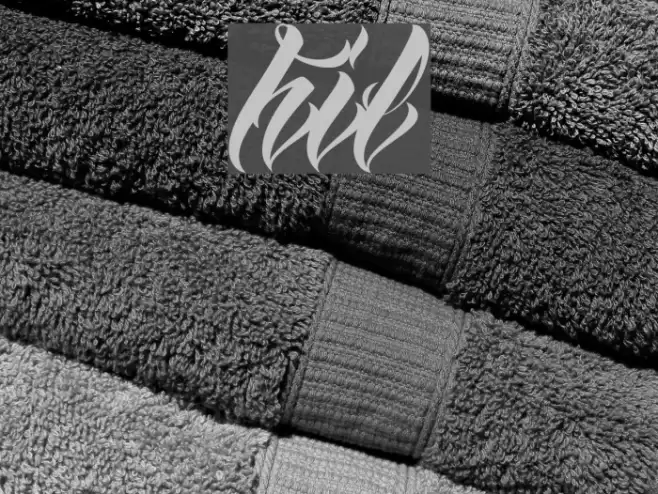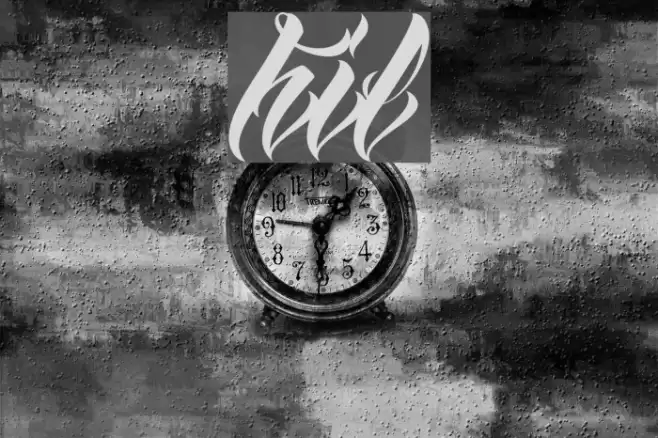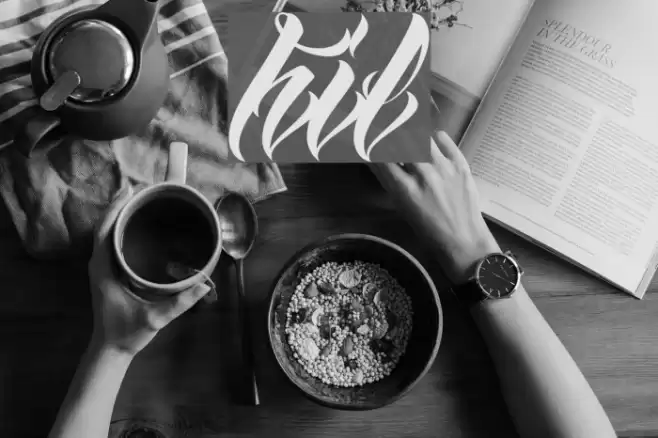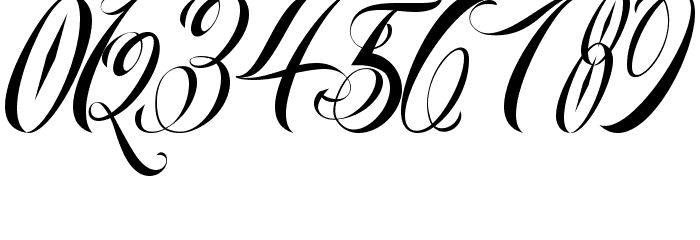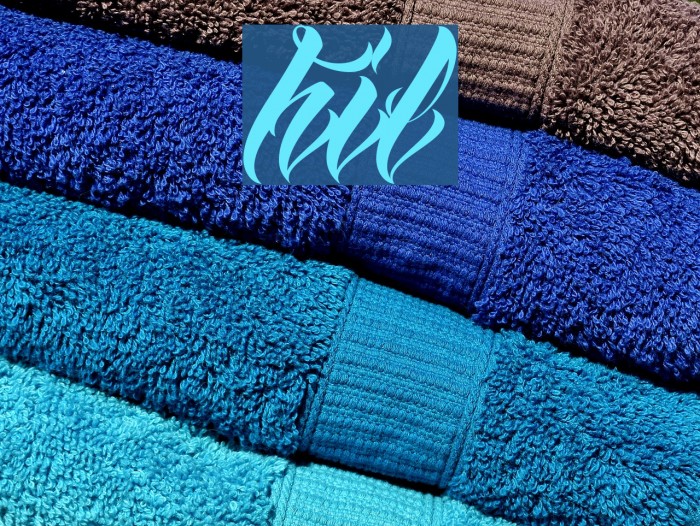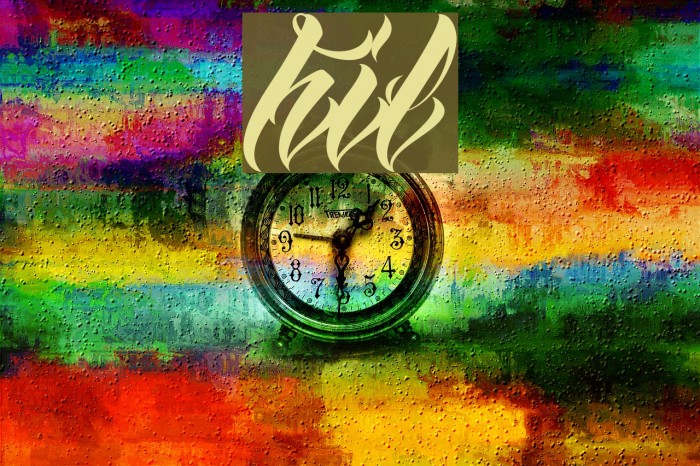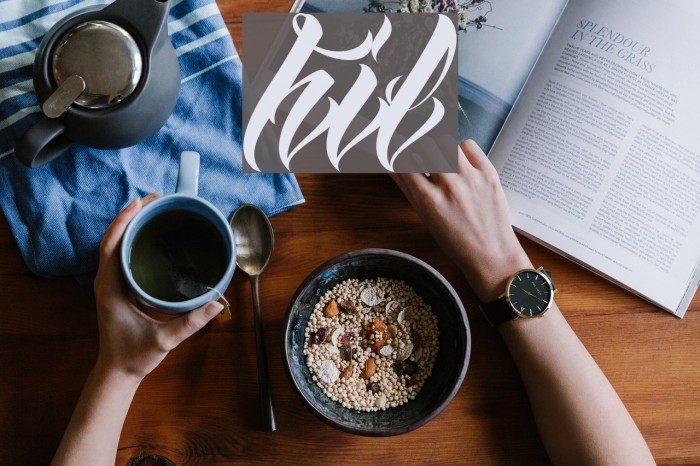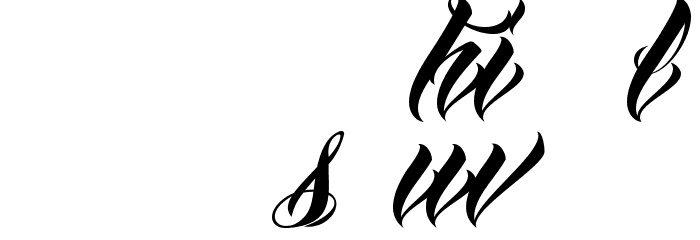
AnhaQueendemoversion Font
AnhaQueendemoversion Description
This font exudes elegance and sophistication with its intricate, flowing script style. The characters are adorned with elaborate swashes and flourishes, giving them a highly decorative appearance. The uppercase letters are particularly ornate, featuring loops and curves that extend beyond the baseline and cap height. The lowercase letters maintain a consistent style, with smooth, connected strokes that enhance readability while retaining a luxurious feel. The numerals are equally stylized, matching the overall aesthetic with their graceful curves. This font is perfect for projects that require a touch of class and refinement.
An elegant, decorative script font with intricate swashes and flourishes.
- Proposed Projects: Ideal for wedding invitations, luxury branding, high-end product packaging, and elegant event signage.